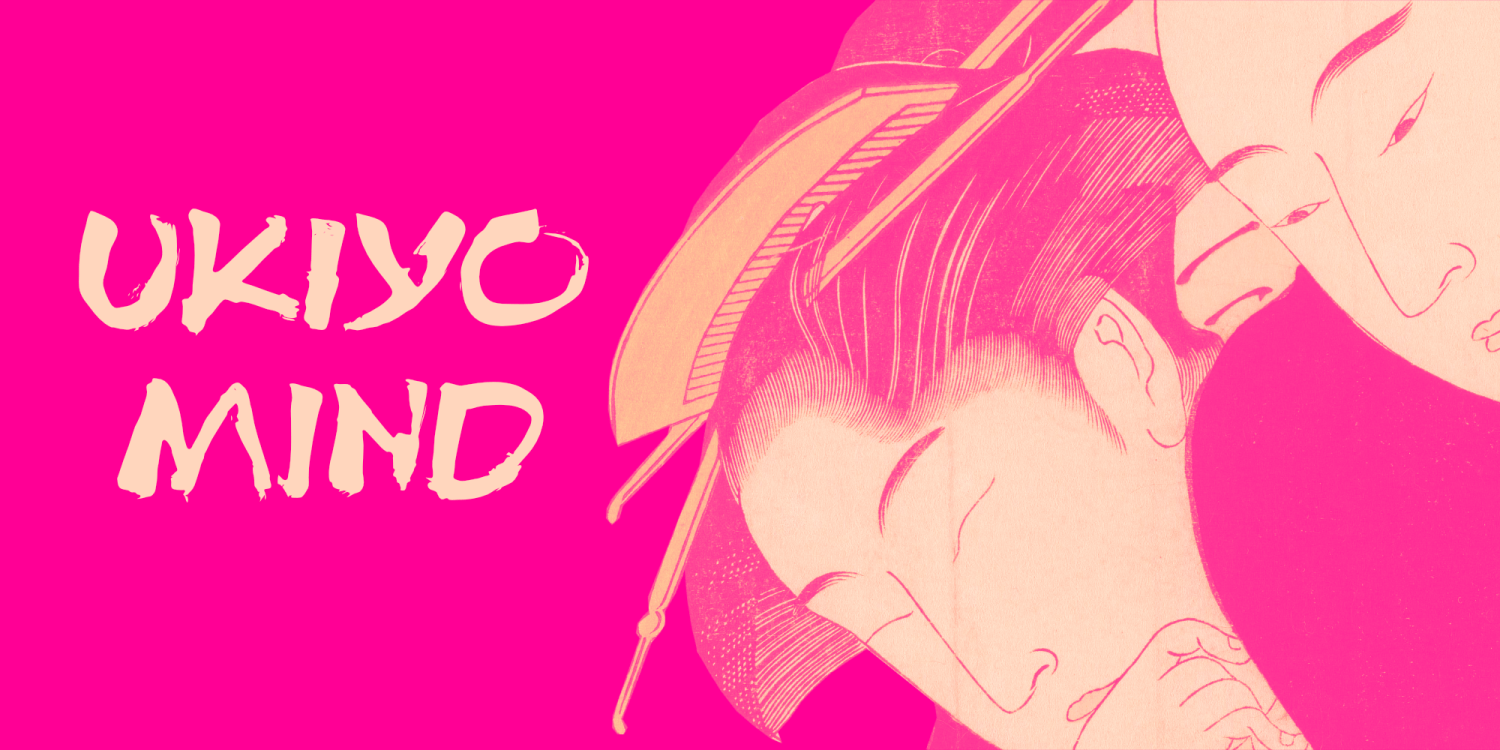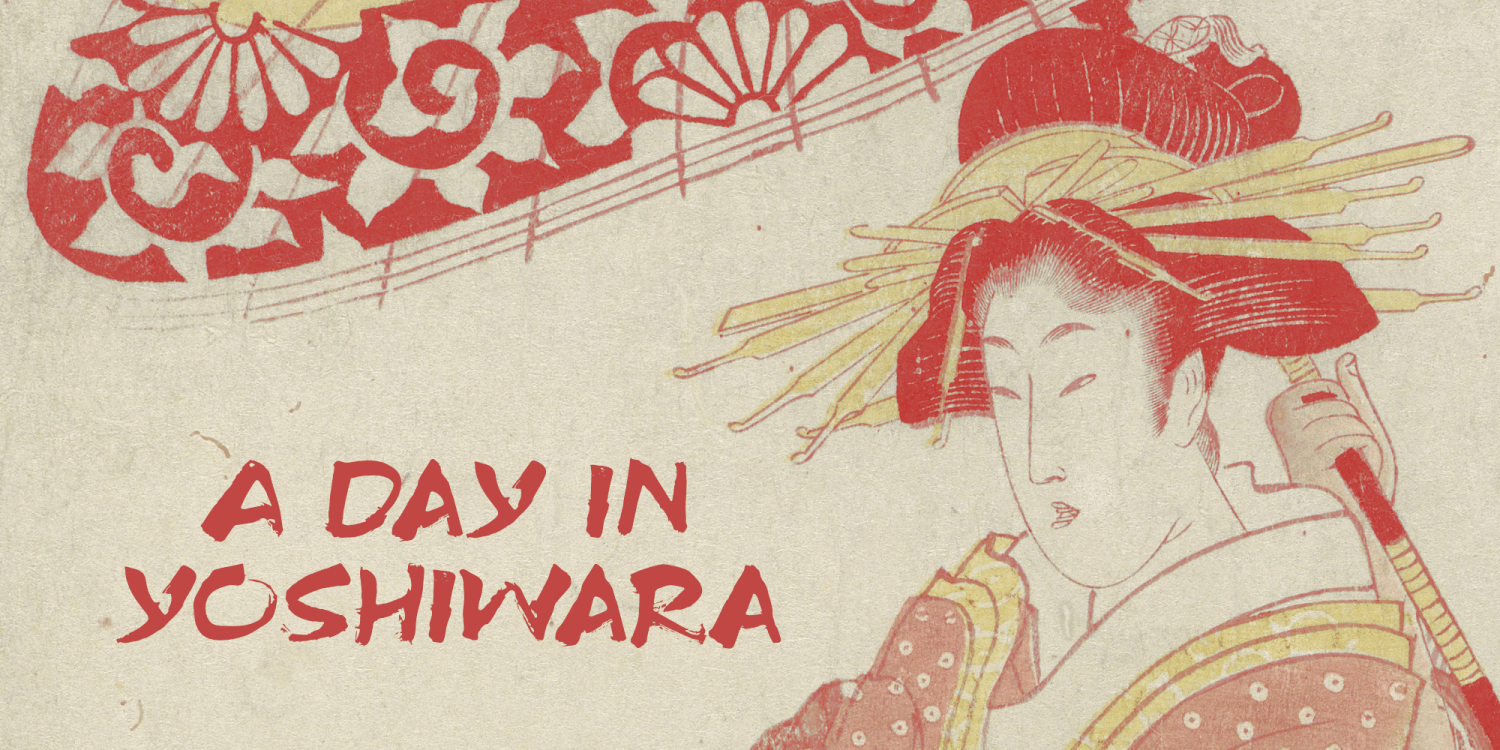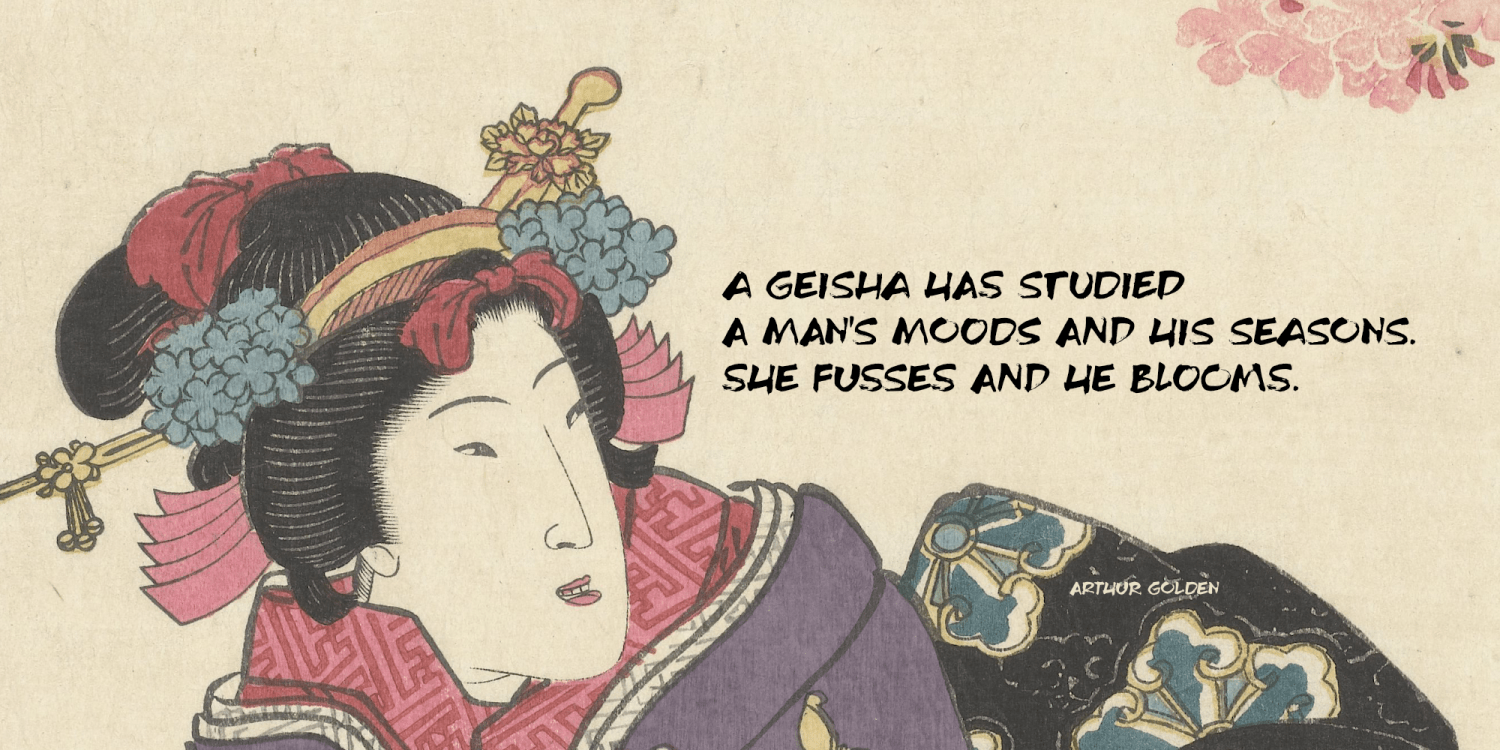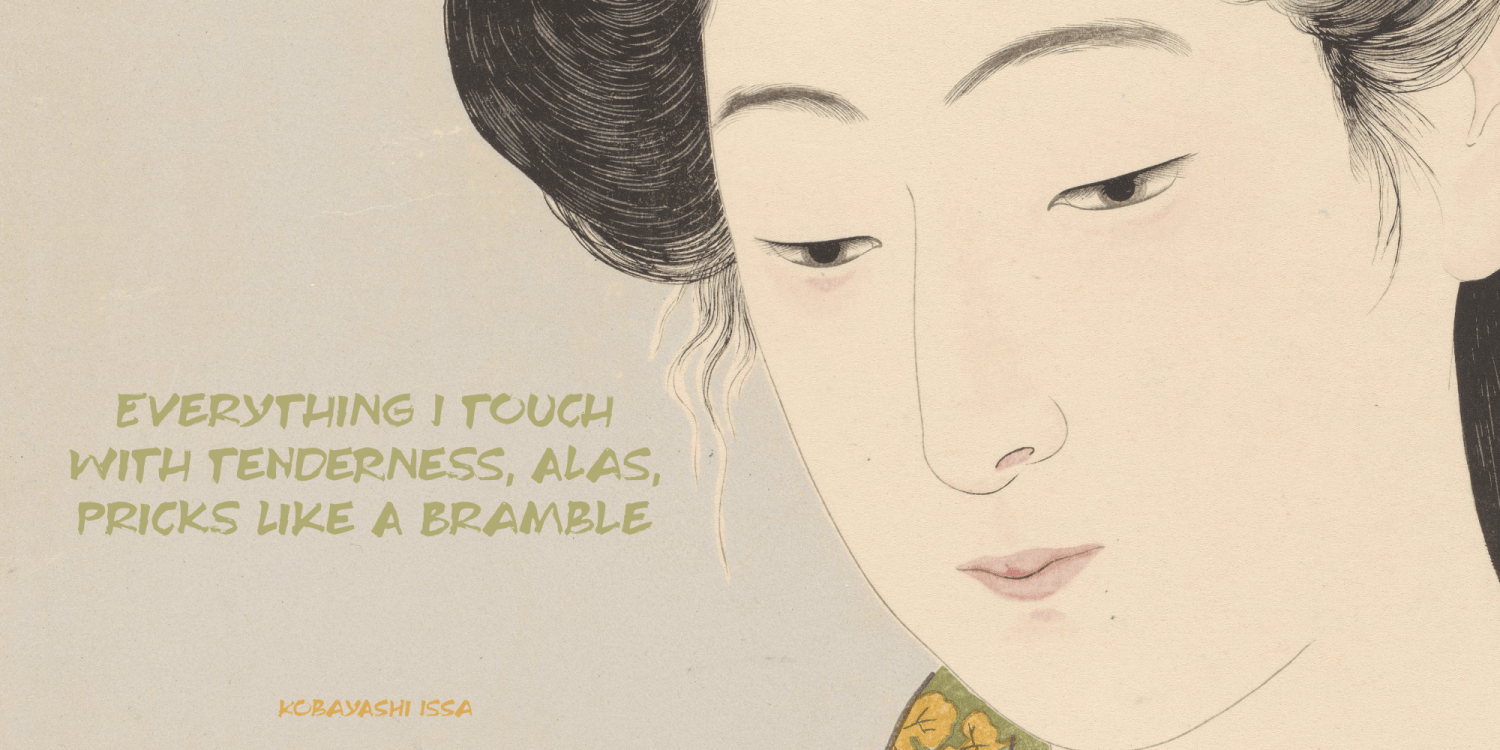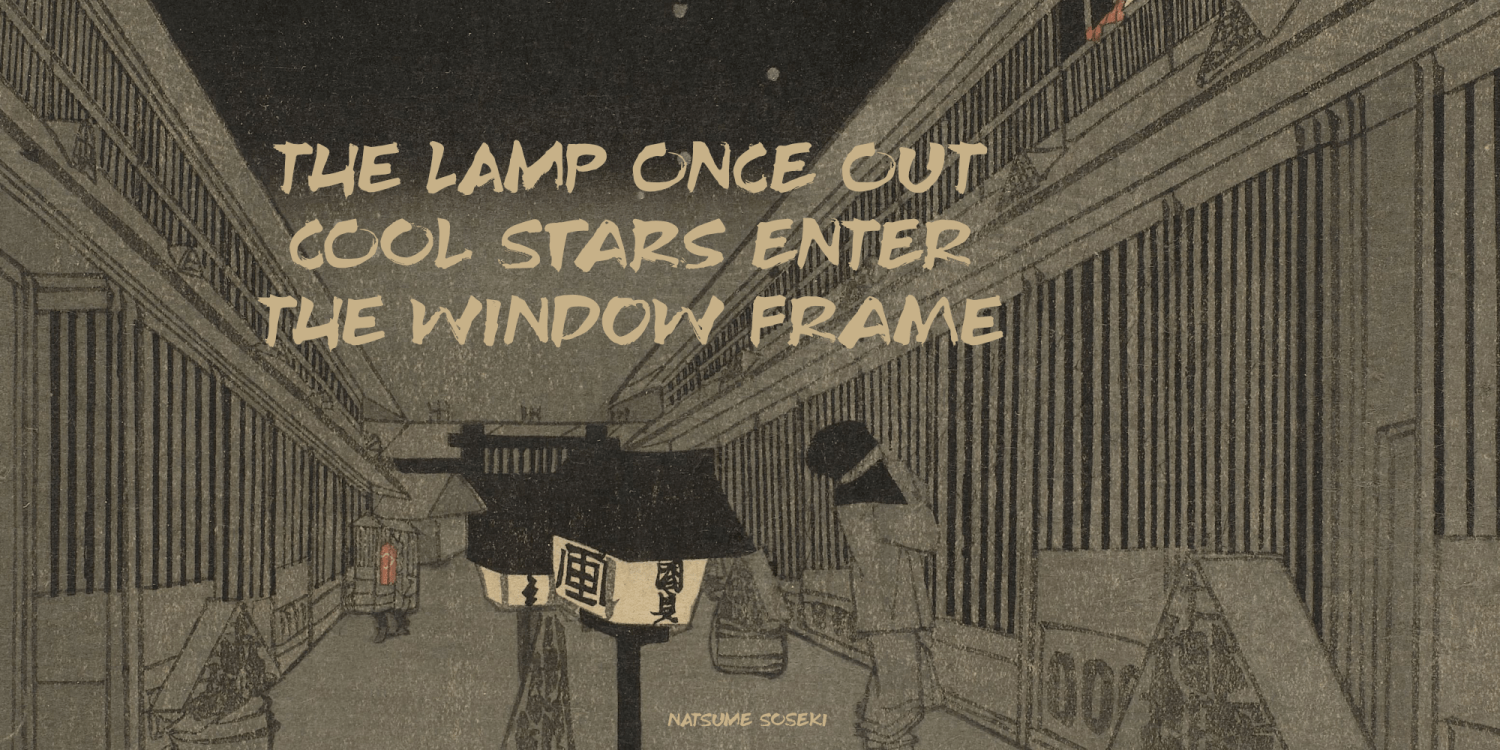
Ukiyo MInd
By chance I stumbled upon an unfinished font in my fonts folder (while looking for something else). It had a stupid working name, but when I opened it, the font looked really nice! I have no idea why I never finished it.
I renamed it Ukiyo Mind, because the font looked a bit like Japanese brush strokes.
Ukiyo is a Japanese term which roughly translates as 'the fleeting/transient world?. In mediaval Japan, the word was associated with Buddhism, but later it was used to describe the urban lifestyle and the pleasure seeking aspects of it. Nowadays it refers to a ?living in the moment? state of mind.
Ukiyo Mind is a really nice brush font, which I probably made using Chinese ink and a brush. It comes with extensive language support and a set of alternates for the lower case glyphs.